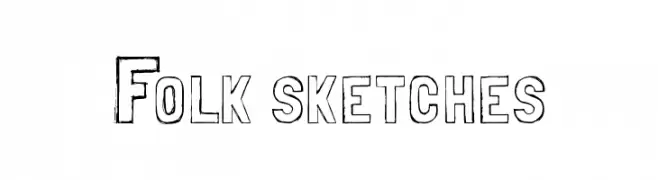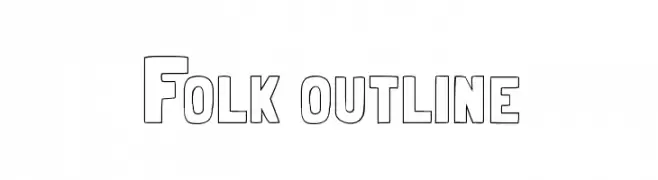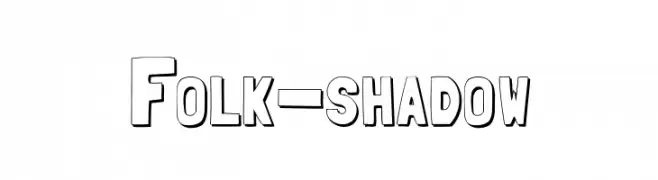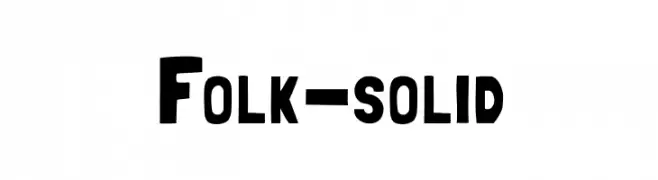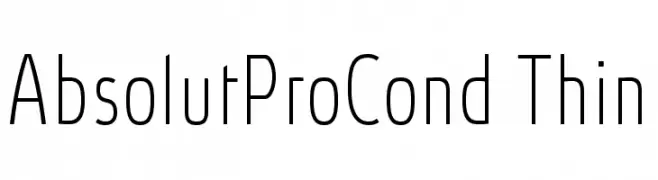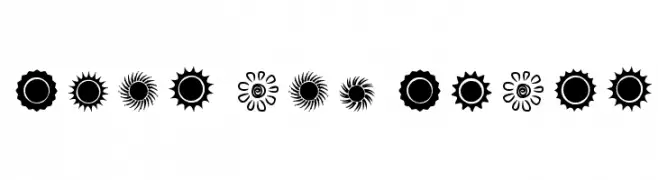
( Fonts by www.marcelomagalhaes.net )
A hand-drawn, sketch-style font with a playful and artistic appearance.
( Fonts by www.marcelomagalhaes.net )
A bold, outlined font with a geometric and eye-catching style.
( Fonts by www.marcelomagalhaes.net )
A bold, playful font with a shadow effect, perfect for eye-catching designs.
( Fonts by www.marcelomagalhaes.net )
A bold, solid font with a vintage yet modern appeal, ideal for impactful designs.
( Fonts by Ingo Zimmermann - www.ingofonts.com )
A sleek, modern, and condensed font with thin strokes and excellent legibility.
( Fonts by Ingo Zimmermann - www.ingofonts.com )
A modern sans-serif font with balanced weight and excellent readability.
( گالری فانت فارسی پژوهش آريانا - only compatible with Farsi and Arabic )
A modern sans-serif font with clean lines and excellent readability.
( Fonts by Peter Wiegel - www.peter-wiegel.de )
A modern, bold sans-serif typeface with excellent readability and geometric structure.
( Fonts by Alphabet & Type: Typography & Graphic - Paolo Vannucci - www.alphabetype.it )
A whimsical and decorative font with celestial embellishments and swirling accents.